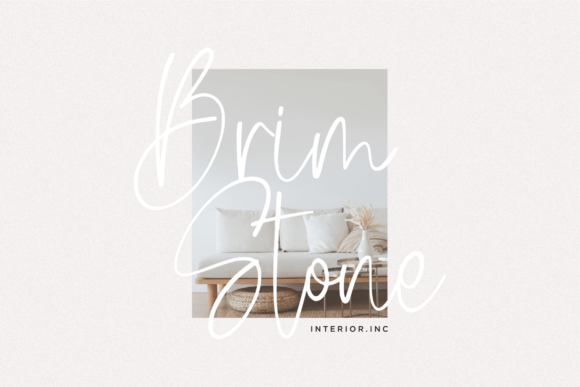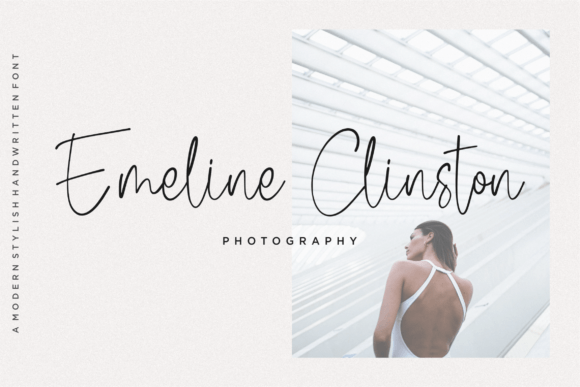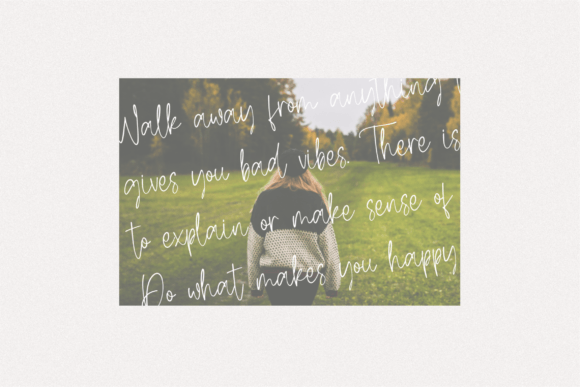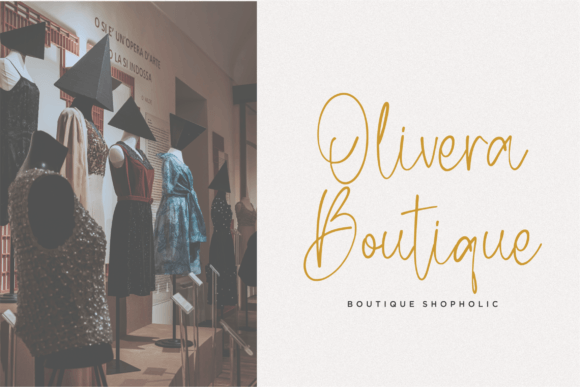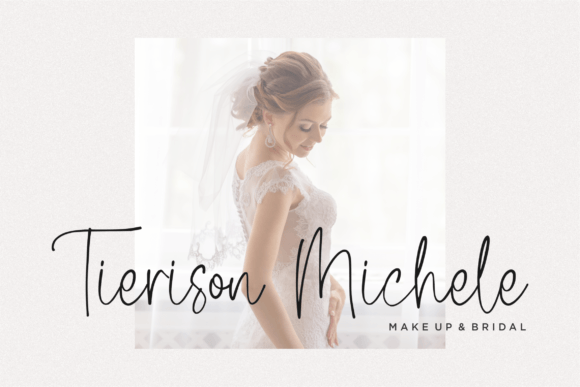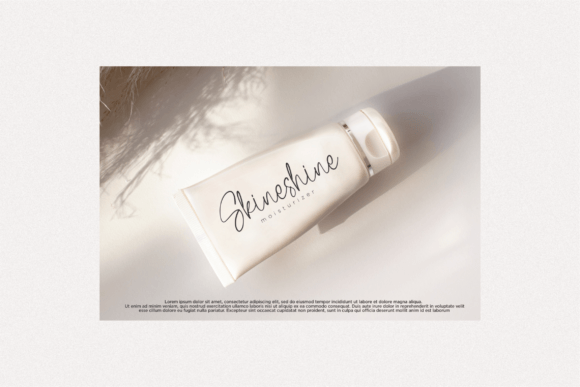
Introduction to Scoutlight Font
Enter Scoutlight Font, a slim and exquisite handwritten font that’s sure to elevate your designs to new heights. With its stylish, graceful, and flowing lines, this high-quality font is the ultimate design companion. Whether you’re working on a personal project or a commercial venture, Scoutlight Font is the perfect choice to give your creations a natural, earthy feel.
Key Features of Scoutlight Font
- High-quality design resource suitable for creative projects, with a modern and sleek aesthetic.
- Features a unique blend of geometric and organic elements, setting it apart from more traditional font styles.
- Perfect for use in a variety of design contexts, including branding, advertising, and digital products.
Honest Review: Scoutlight Font
I recently had the chance to work with the Scoutlight Font in one of my creative projects, and I must say it’s been a game-changer. This design resource is perfect for anyone looking for a high-quality font that adds a touch of sophistication to their work.
Here are some things that I think work well with the Scoutlight Font: ✨
- Its clean and minimalist design makes it perfect for a variety of creative projects, from digital art to web design.
- The font may not be suitable for projects that require a more dramatic or playful feel, as it’s a relatively straightforward and simple design.
Overall, I’m thoroughly impressed with the Scoutlight Font. It’s a high-quality design resource that’s perfect for designers who value simplicity and elegance. While it may not be suitable for every project, it’s definitely worth considering for your next creative endeavor.
Tips for Getting the Most Out of Scoutlight Font
To get the most out of the Scoutlight Font, use it in combination with other high-quality design resources. Experiment with different font sizes, colors, and styles to create a unique look for your creative project. Additionally, make sure to use the font on a transparent background to achieve a clean and professional design.